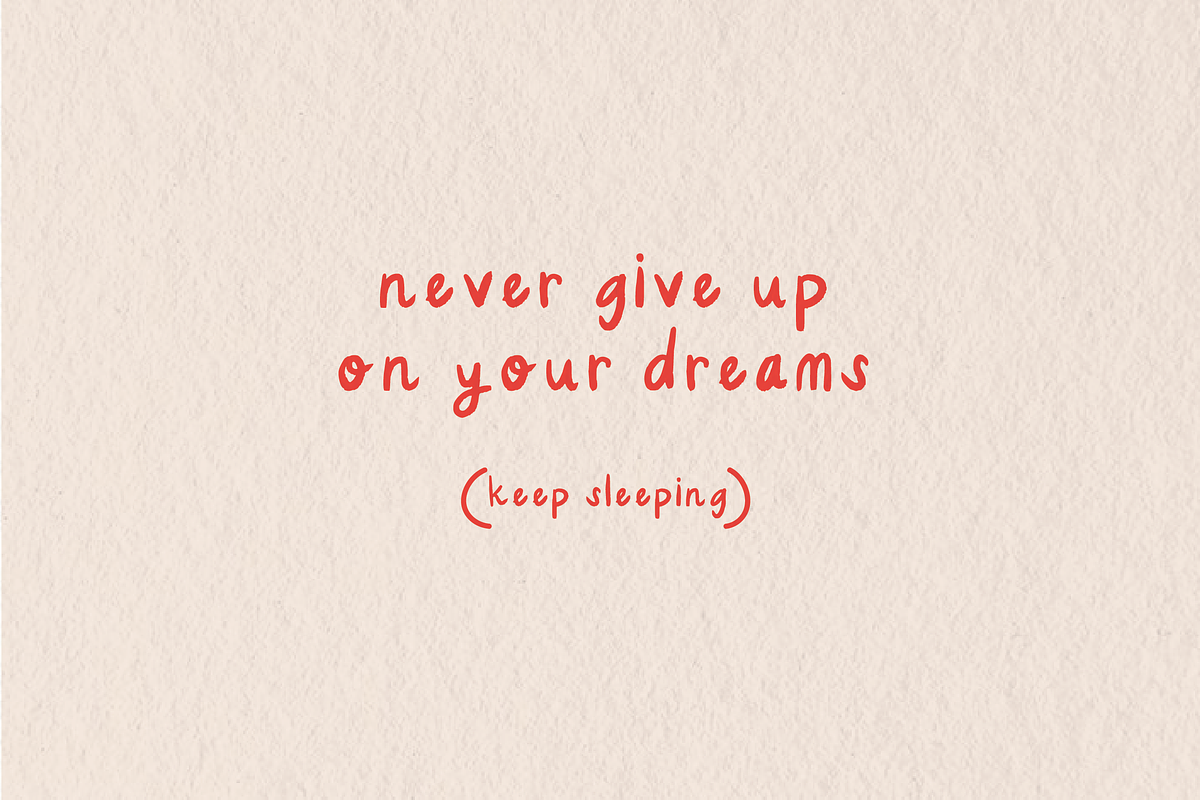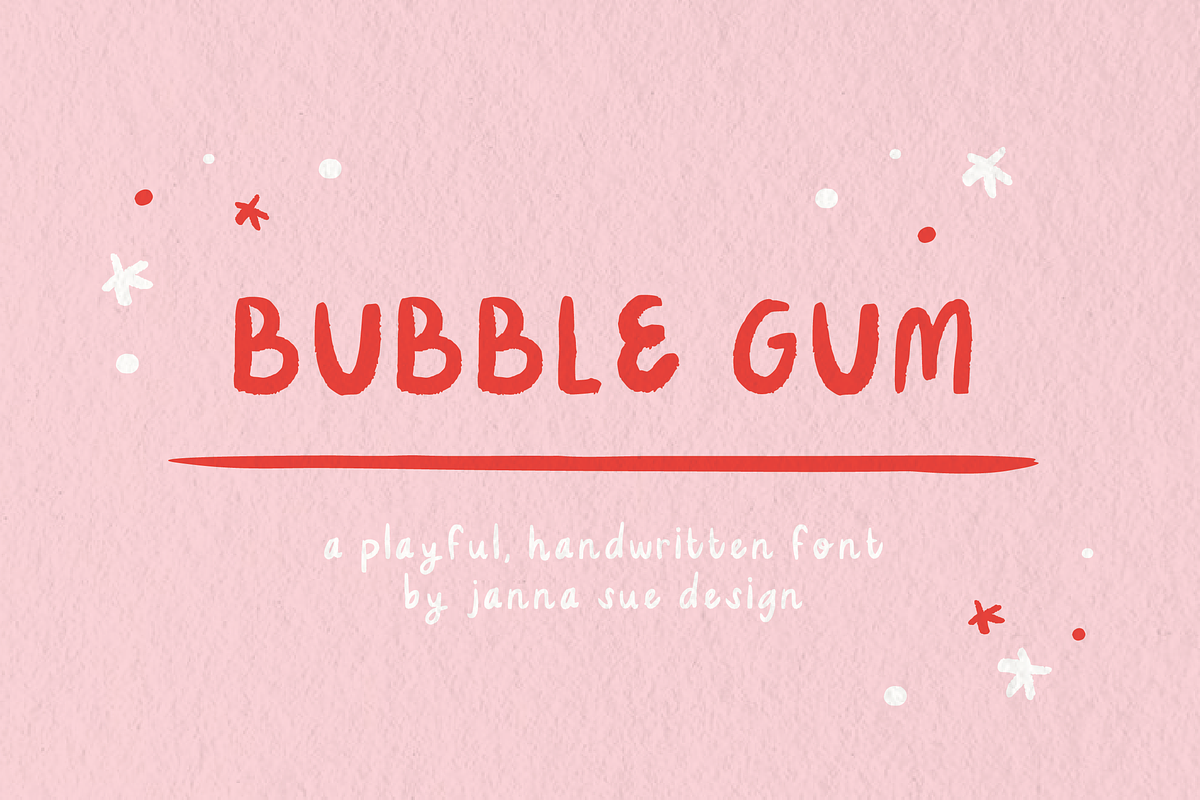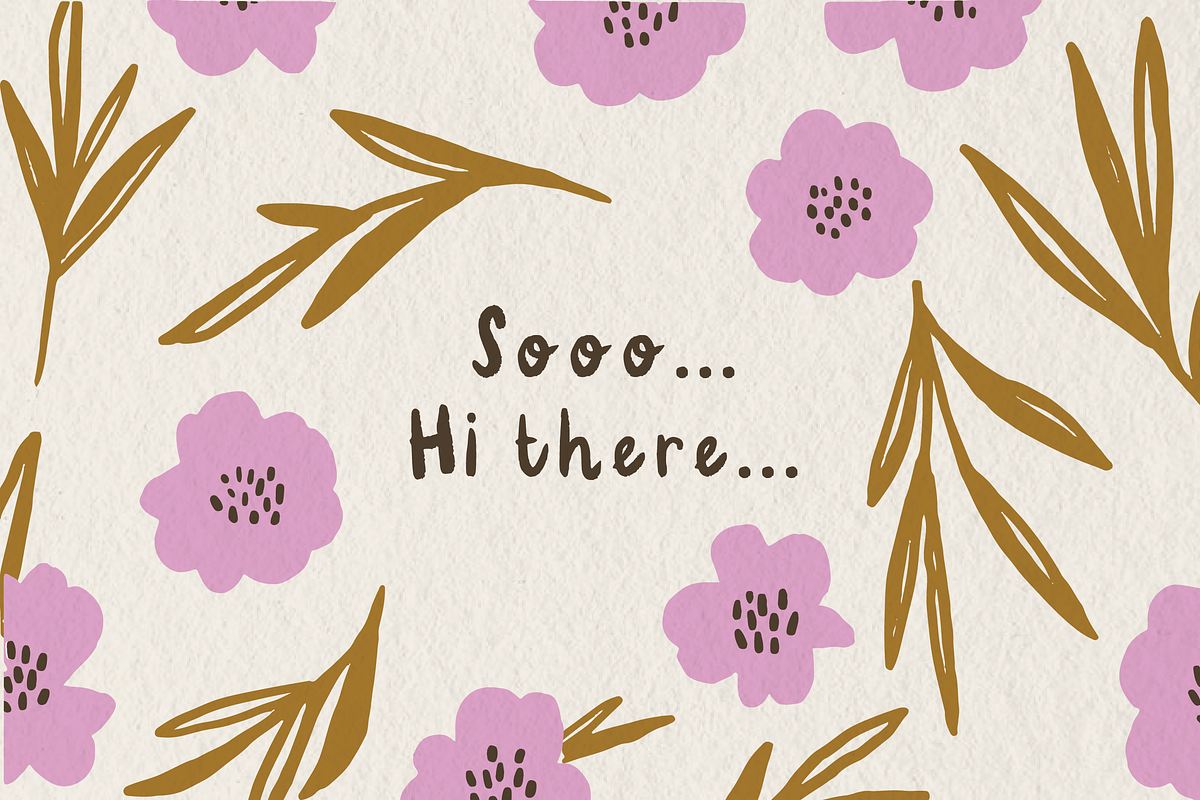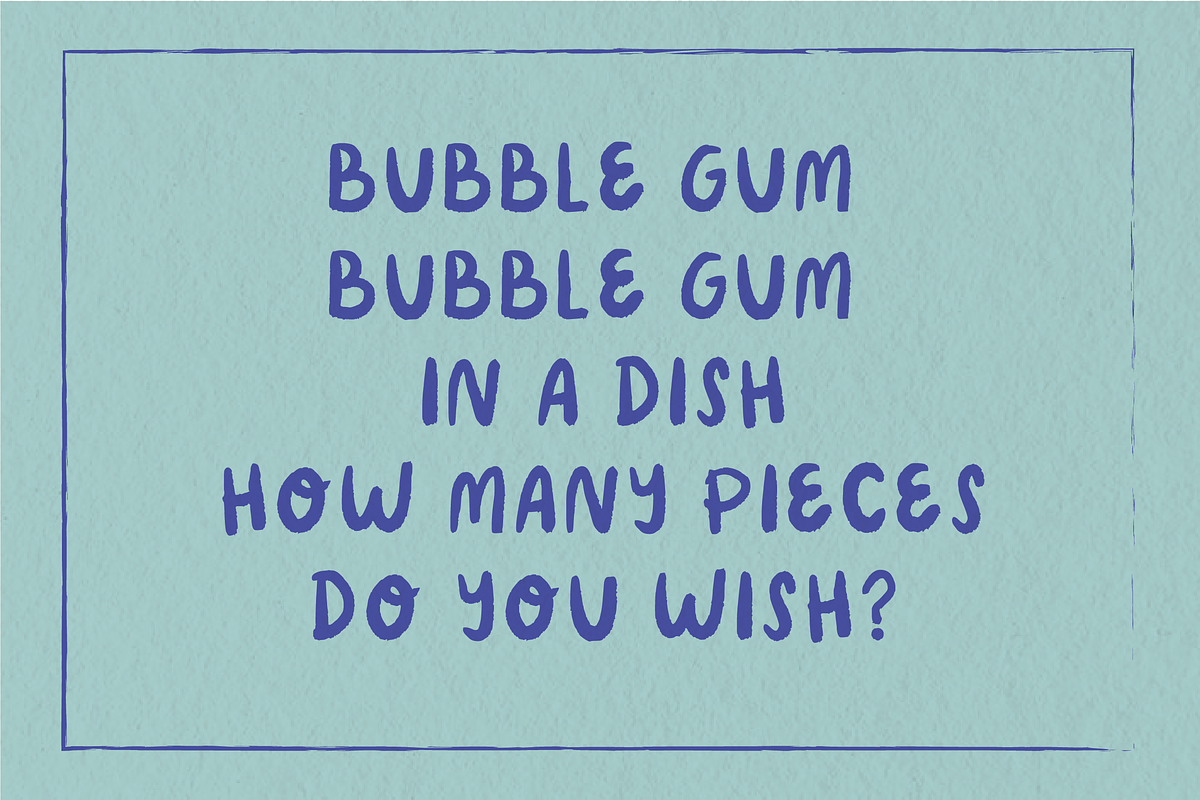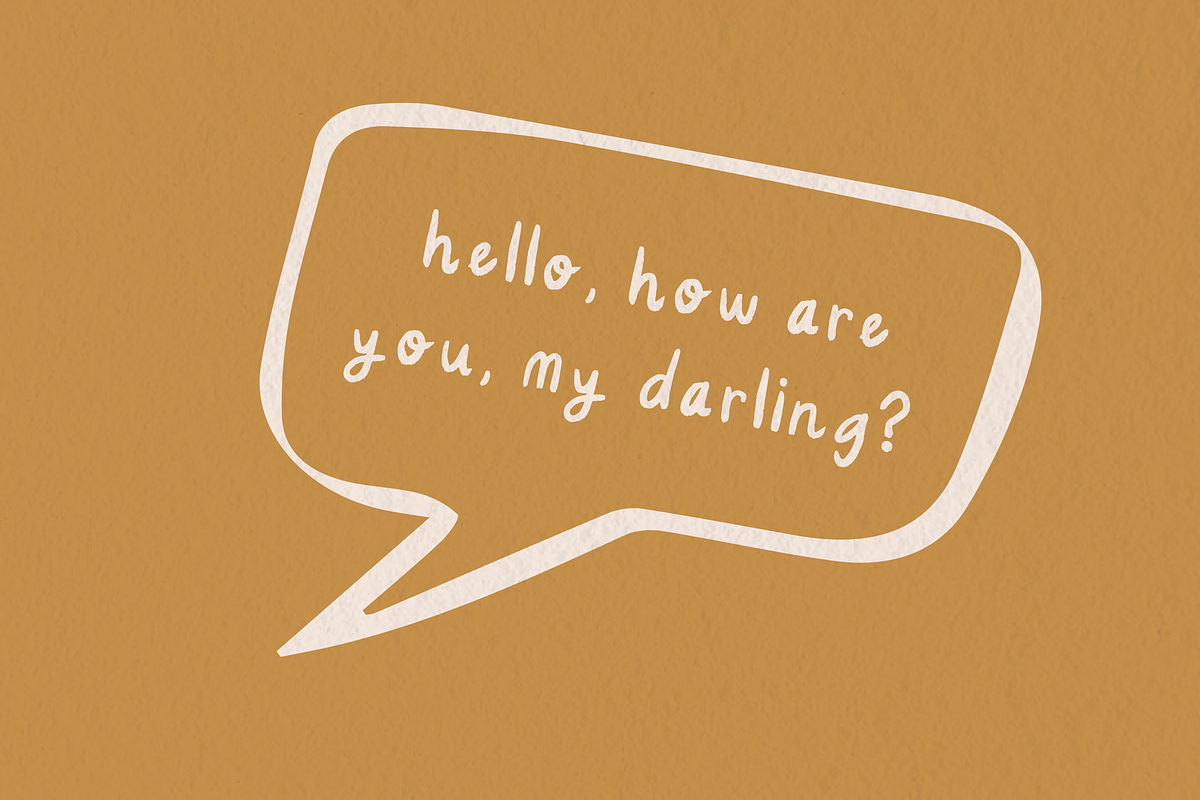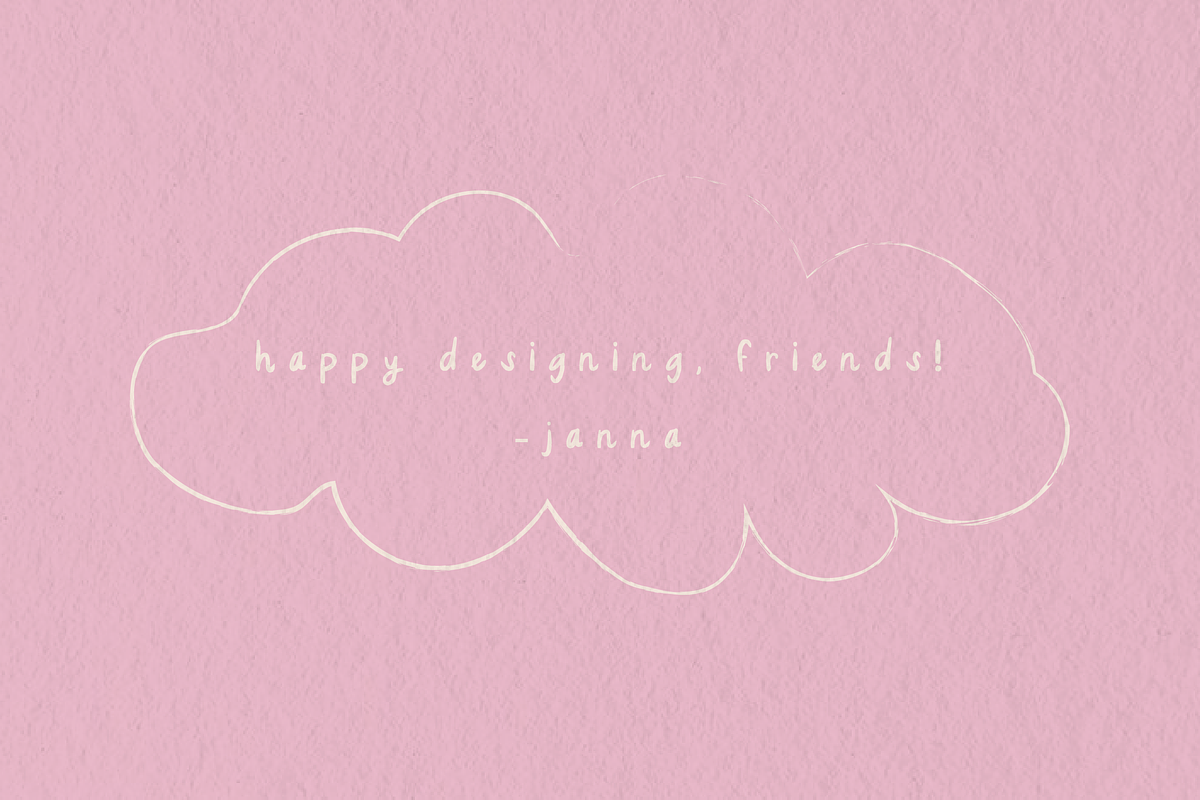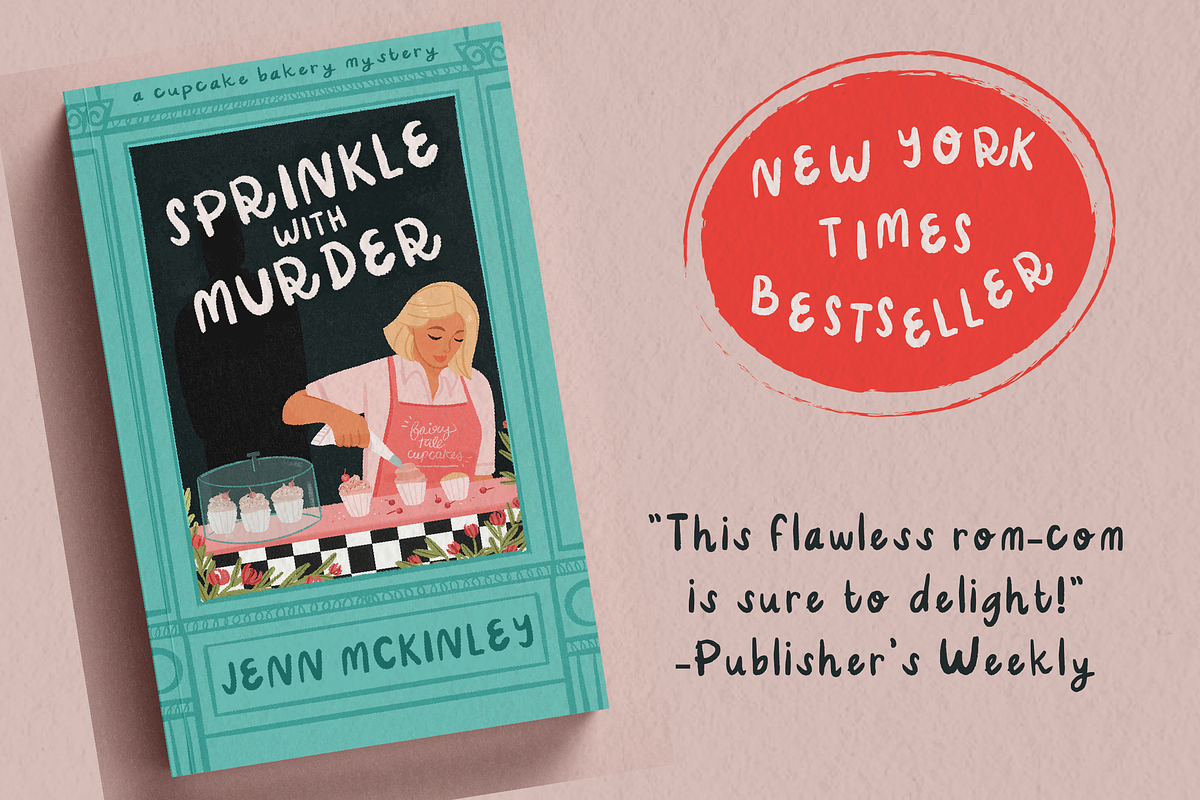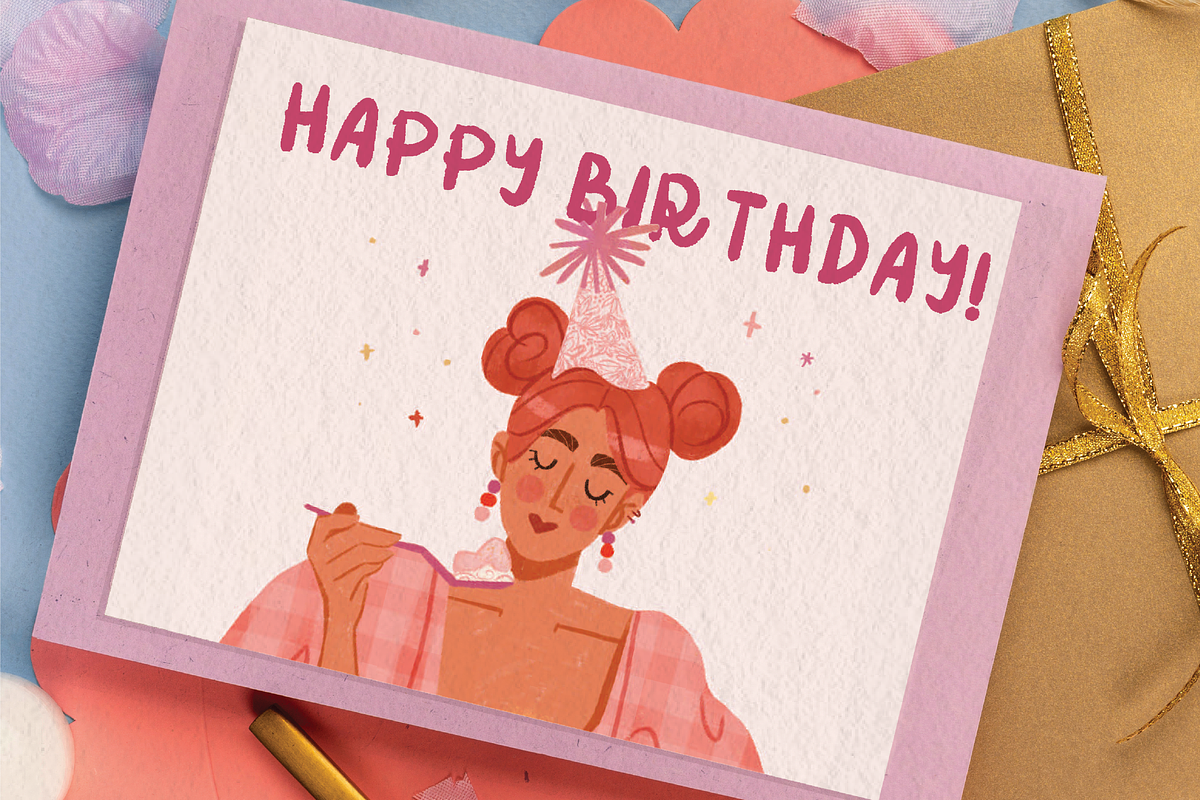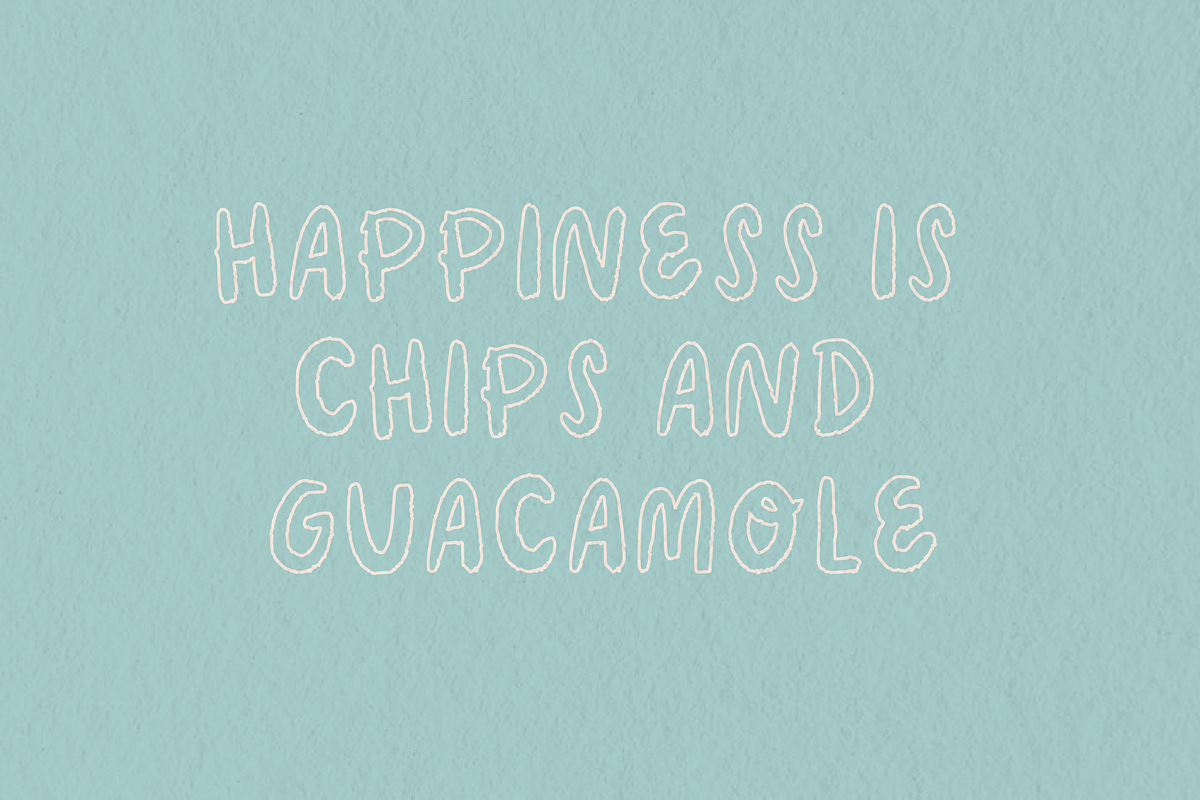
BUBBLE GUM a handwritten font
BUBBLE GUM a handwritten font by Janna Sue Design. A carefully crafted hand writing font for whimsical design work. Capital and lowercase characters, perfect for illustration work, to use as a display font or simply to add a handwritten flair to your project. Happy designing friends! XOXO Janna